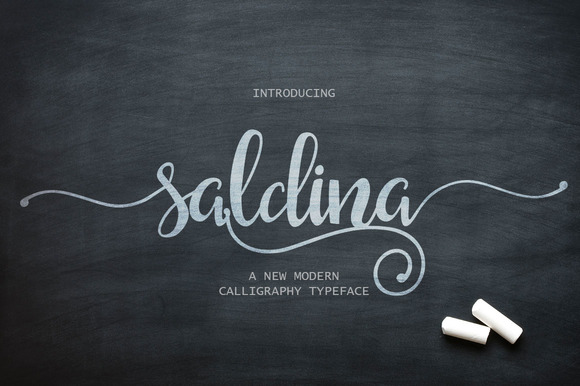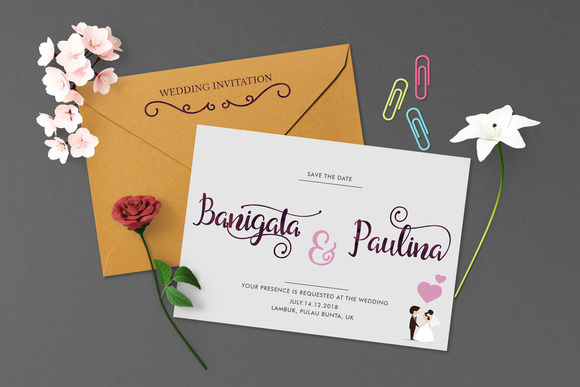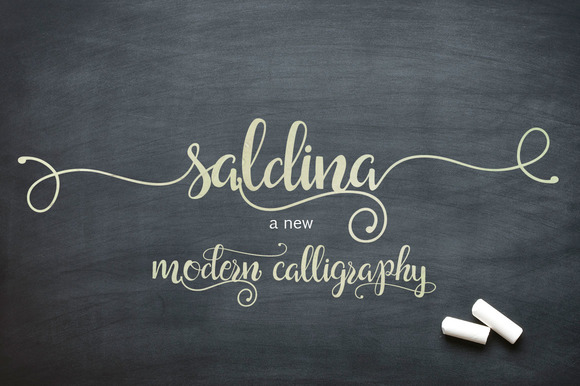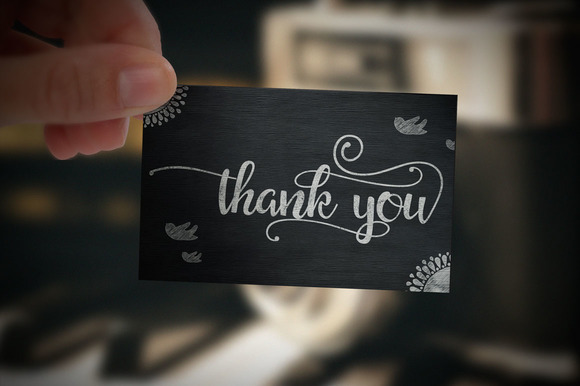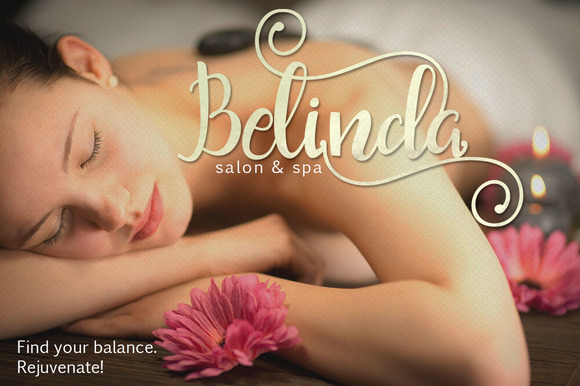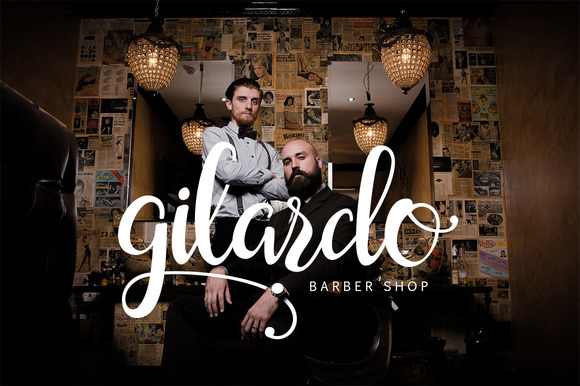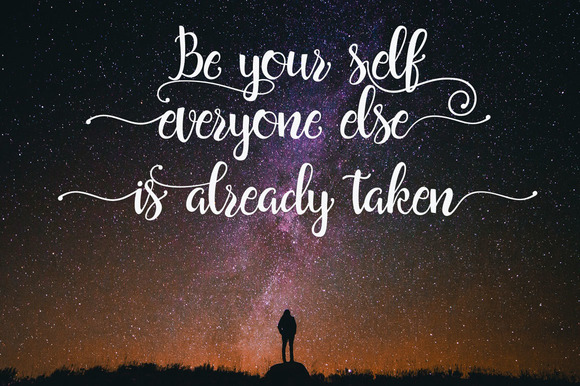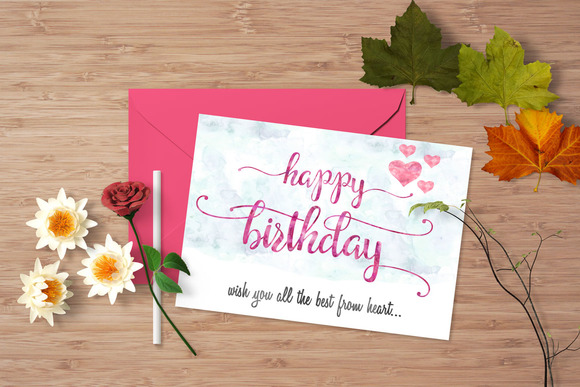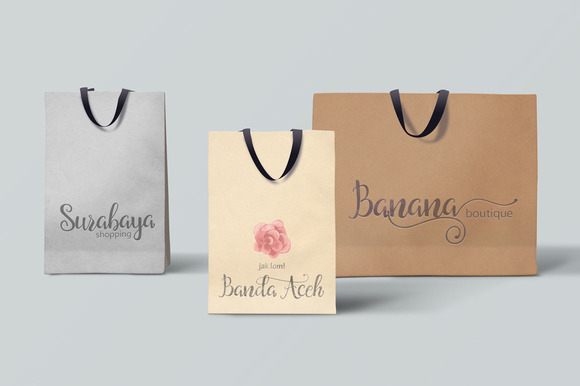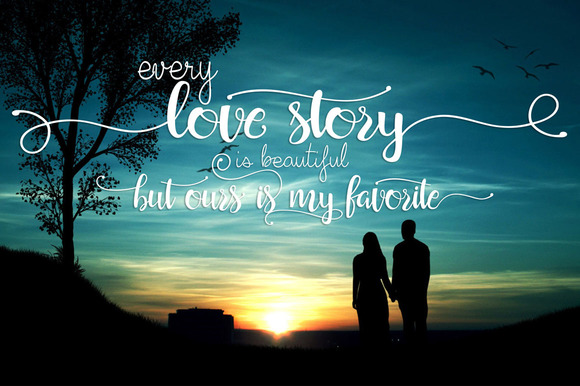
Saldina Font
About Saldina Font
Saldina is a script font that combined brush lettering with traditional hand writing. Saldina is multipurpose and flexible which makes it easy to match with other typefaces to create some beautiful designs!